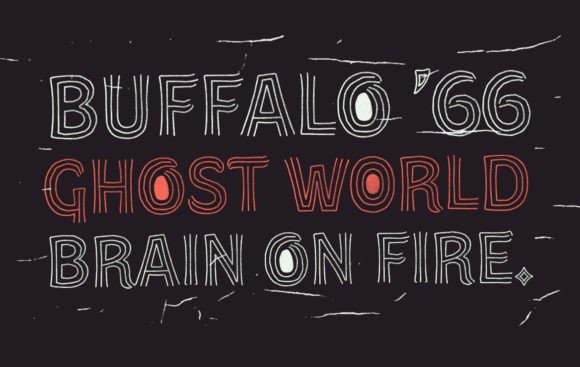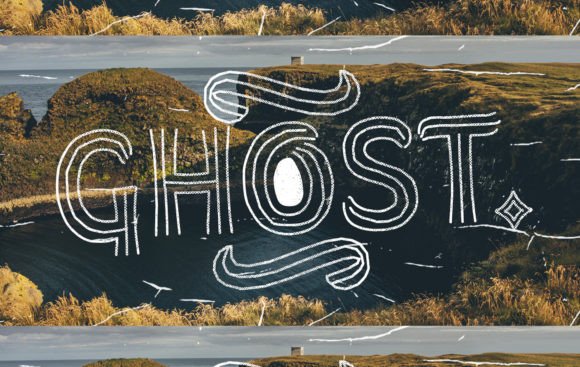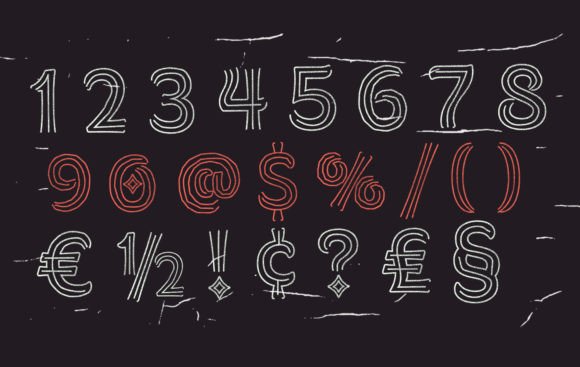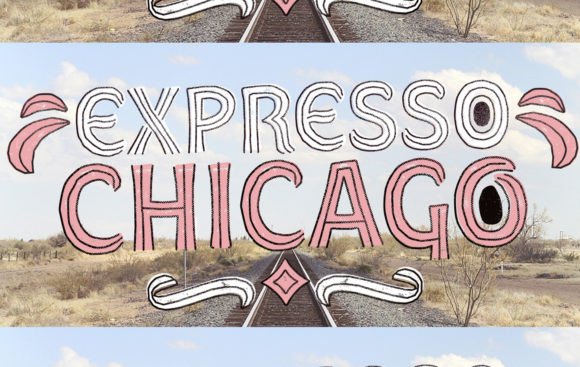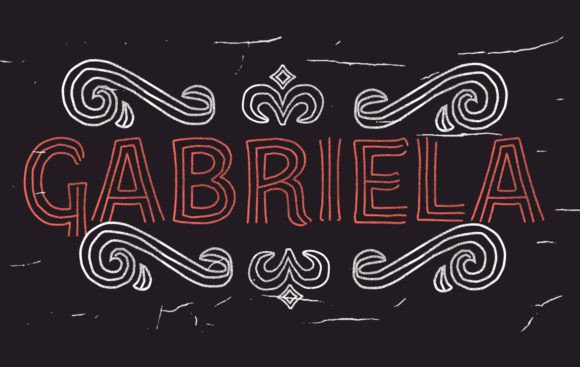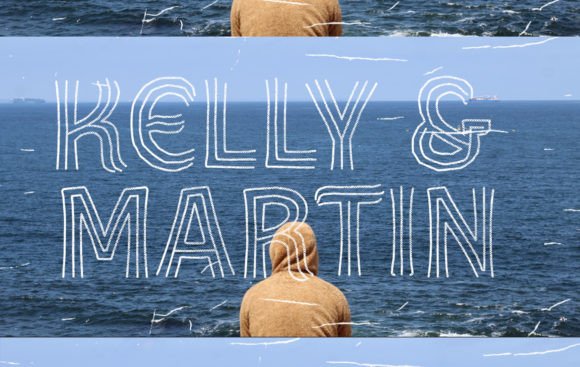
Introducing Elah Spring Font: Adding a Touch of Whimsy to Your Designs
In the world of typography, fonts play a crucial role in conveying the tone and personality of a design. With the vast array of typefaces available, it can be challenging to find one that stands out from the crowd. However, if you’re looking for a font that exudes creativity and playfulness, look no further than Elah Spring Font. This distinctive and unique font is sure to add a touch of charm to your designs, making it perfect for projects that require a dash of personality.
The Unique Characteristics of Elah Spring Font
Elah Spring Font boasts an organic feel and playful character that sets it apart from traditional typefaces. Its irregular shapes and quirky details give it a charming feel that’s sure to capture the attention of your audience. The font’s unique characteristics make it an excellent choice for designers and crafters looking to add a touch of whimsy to their work.
Elah Spring Font is perfect for designs that require a touch of creativity and personality. Whether you’re working on branding, packaging, or editorial layouts, this font is sure to bring a fresh and playful vibe to your project. Its irregular shapes and quirky details make it an excellent choice for:
- Branding: Add a touch of personality to your brand’s identity with Elah Spring Font. Its unique character makes it perfect for logos, business cards, and other marketing materials.
- Packaging: Make your product stand out on store shelves with Elah Spring Font. Its playful character is sure to grab the attention of potential customers.
- Editorial Layouts: Add a touch of whimsy to your editorial layouts with Elah Spring Font. Its organic feel makes it perfect for articles, blog posts, and other written content.
Why Choose Elah Spring Font?
With so many fonts available, why choose Elah Spring Font? Here are just a few reasons why this font stands out:
- Unique Character: Elah Spring Font has a unique character that’s sure to set your design apart from the crowd.
- Playful Vibe: This font has a playful vibe that’s perfect for designs that require a touch of creativity and personality.
- Versatile: Elah Spring Font is versatile and can be used for a variety of projects, from branding to packaging and editorial layouts.
Tips for Using Elah Spring Font
Here are a few tips for using Elah Spring Font in your designs:
- Use it sparingly: While Elah Spring Font is perfect for adding a touch of personality to your design, it’s essential to use it sparingly. Too much of a good thing can be overwhelming.
- Pair it with a neutral font: Pair Elah Spring Font with a neutral font to create a beautiful contrast and add visual interest to your design.
- Experiment with colors: Elah Spring Font looks great in a variety of colors. Experiment with different colors to find the perfect one for your design.
| Font Name | Elah Spring Font |
| Author | Rodrigo Typo |
In conclusion, Elah Spring Font is a distinctive and unique font that’s perfect for designs that require a touch of creativity and personality. Its irregular shapes and quirky details give it a charming feel that sets it apart from traditional typefaces. Whether you’re working on branding, packaging, or editorial layouts, Elah Spring Font is sure to bring a fresh and playful vibe to your project. So why not give it a try and see how it can elevate your designs?